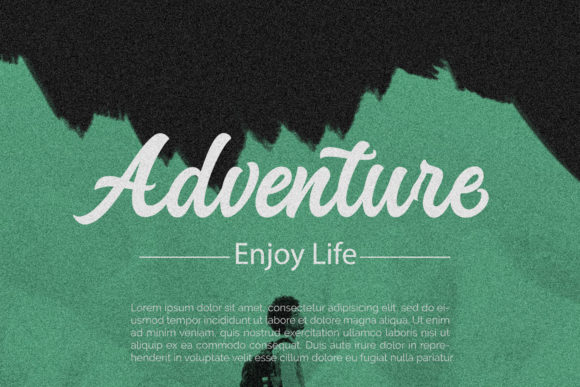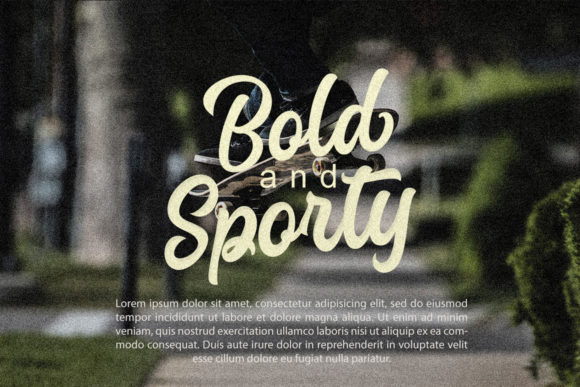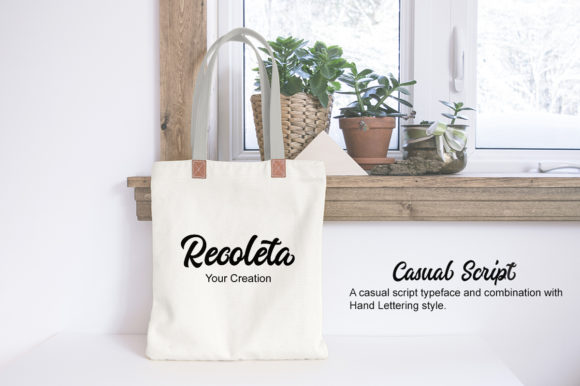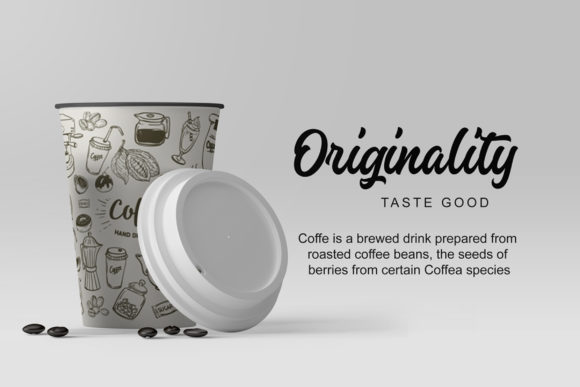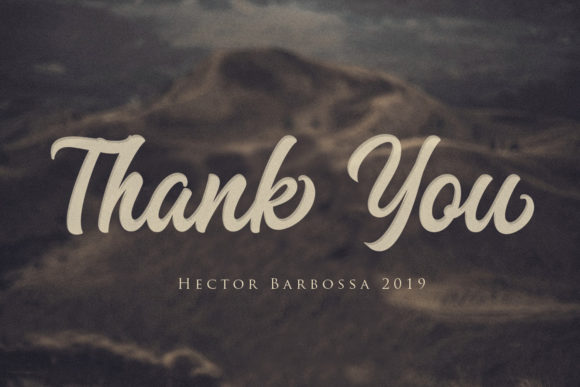
Hector Barbossa Font
About Hector Barbossa Font
Hector Barbossa is a casual script font that is great for a variety of projects. Get inspired by its unique handwritten charm.